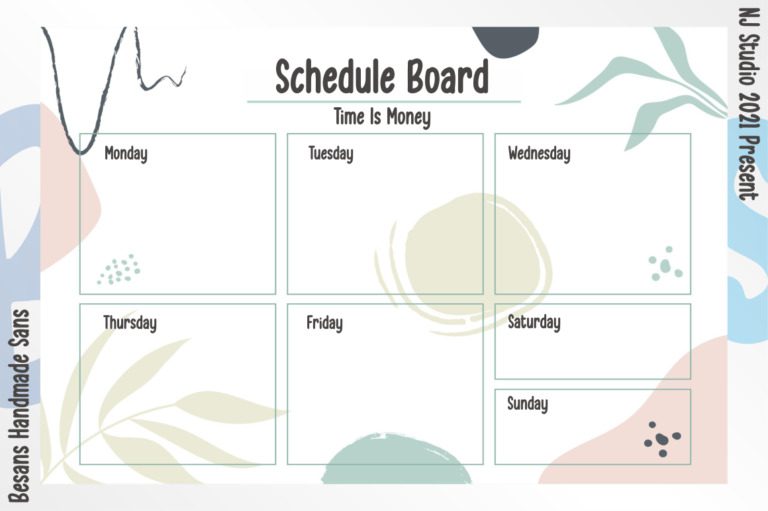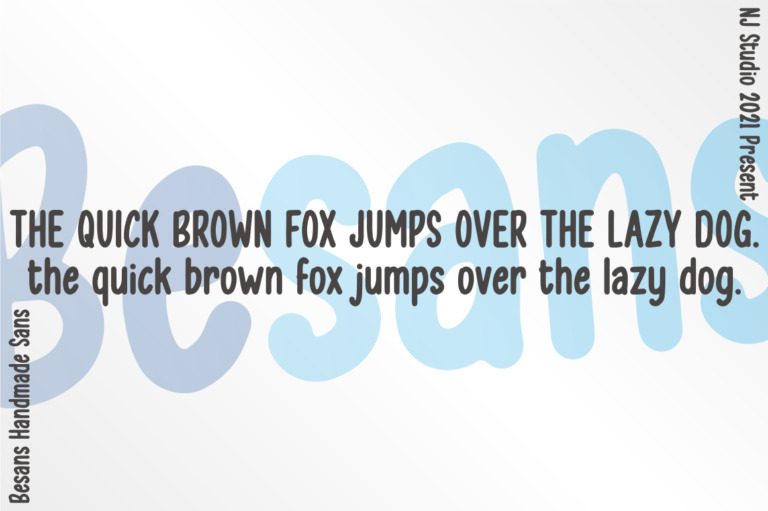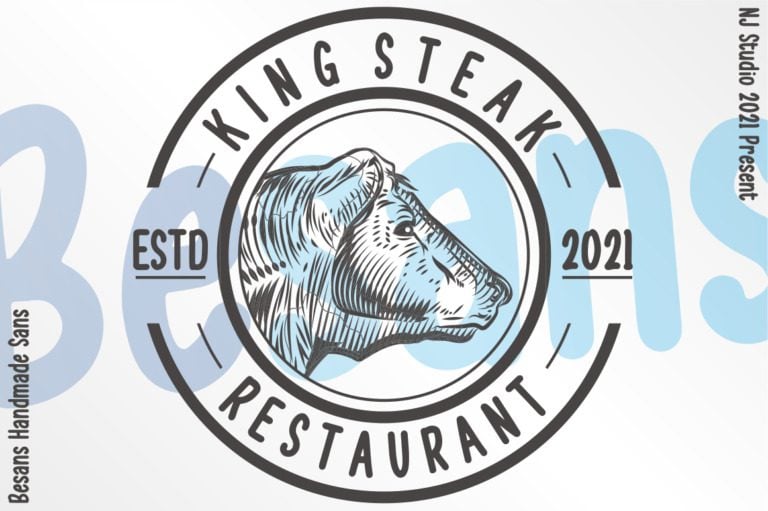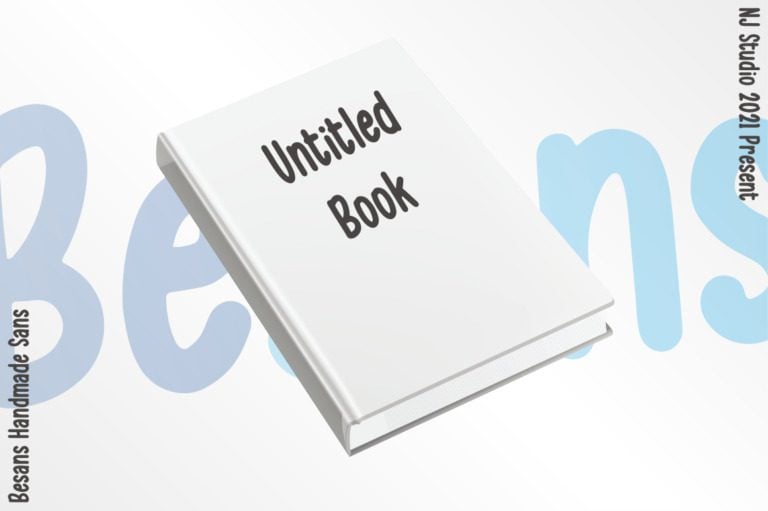
Besans Font
Besans is a clean, minimalist handwritten font, perfect for creating modern and eye-catching designs. Its simple lines and geometric shapes make it versatile for a variety of applications, from logos and headlines to body text and web design. With its clear and readable characters, Besans is a great choice for projects that require a contemporary and professional look.